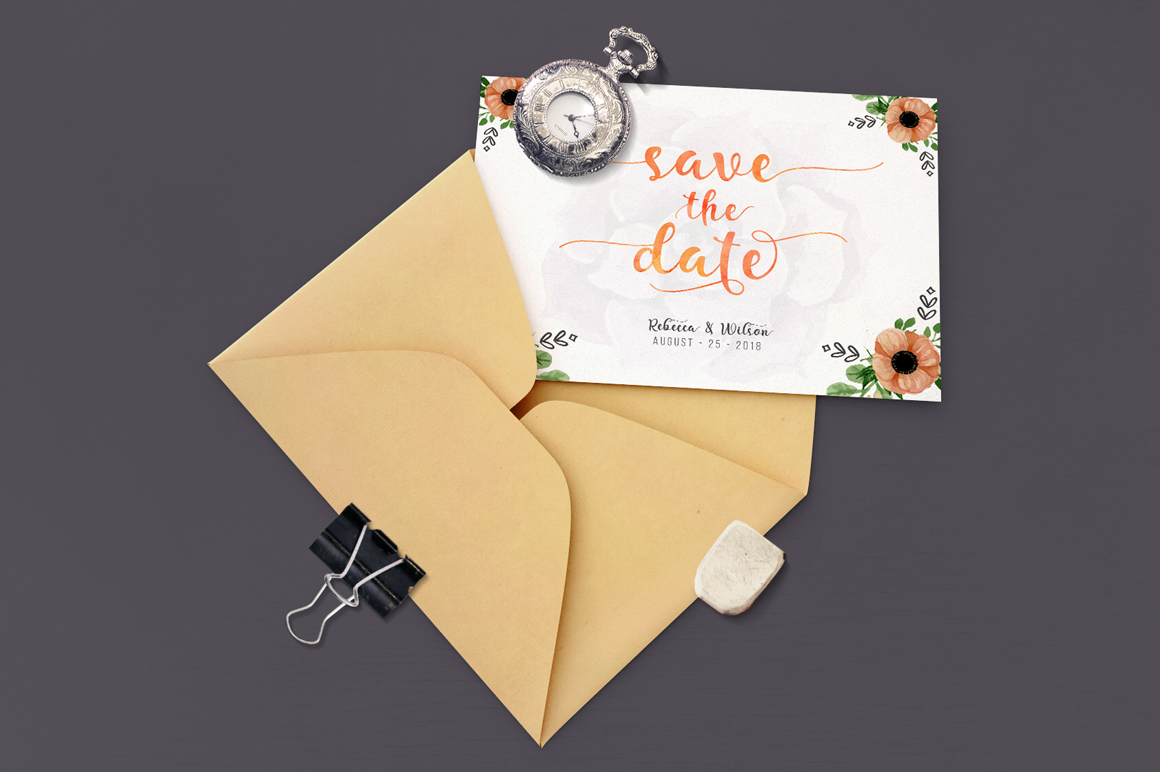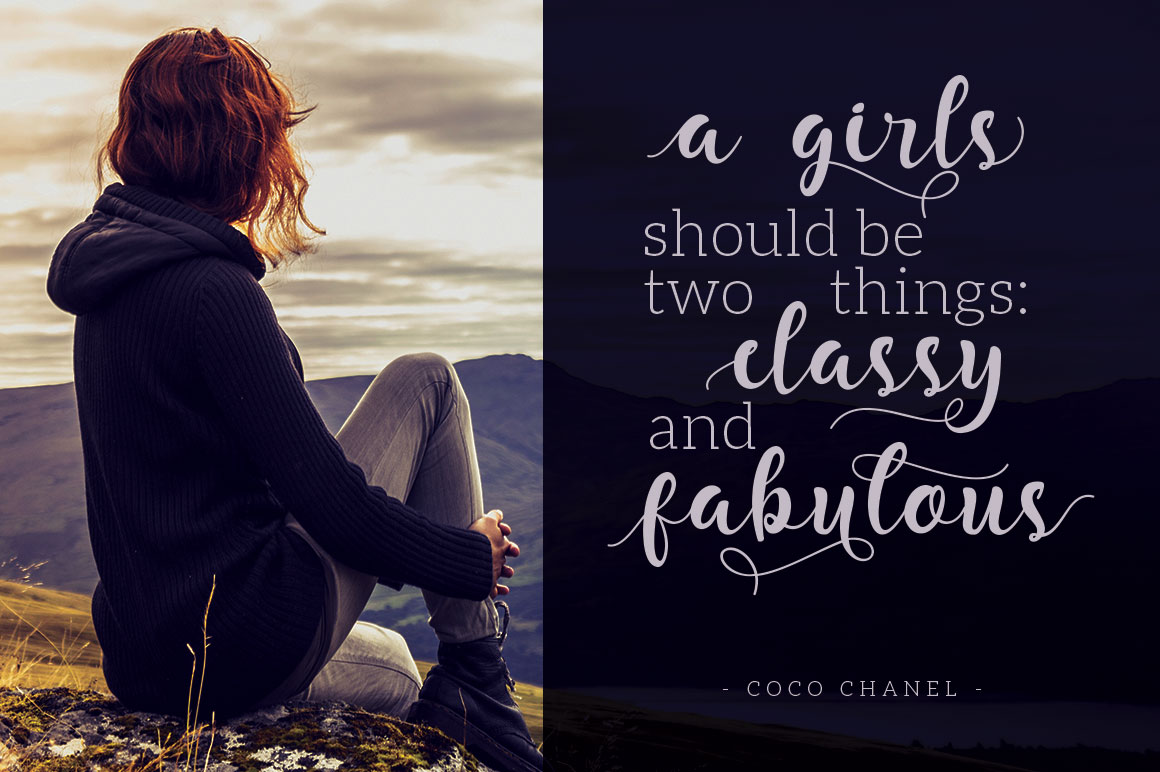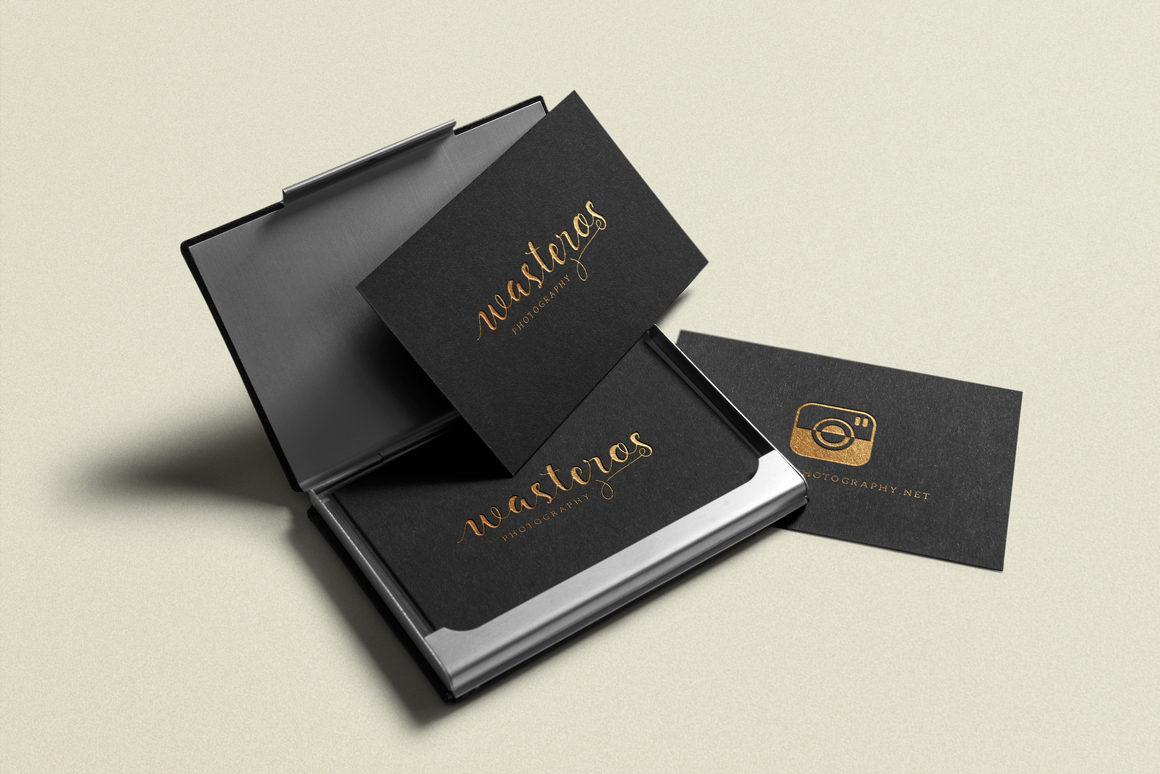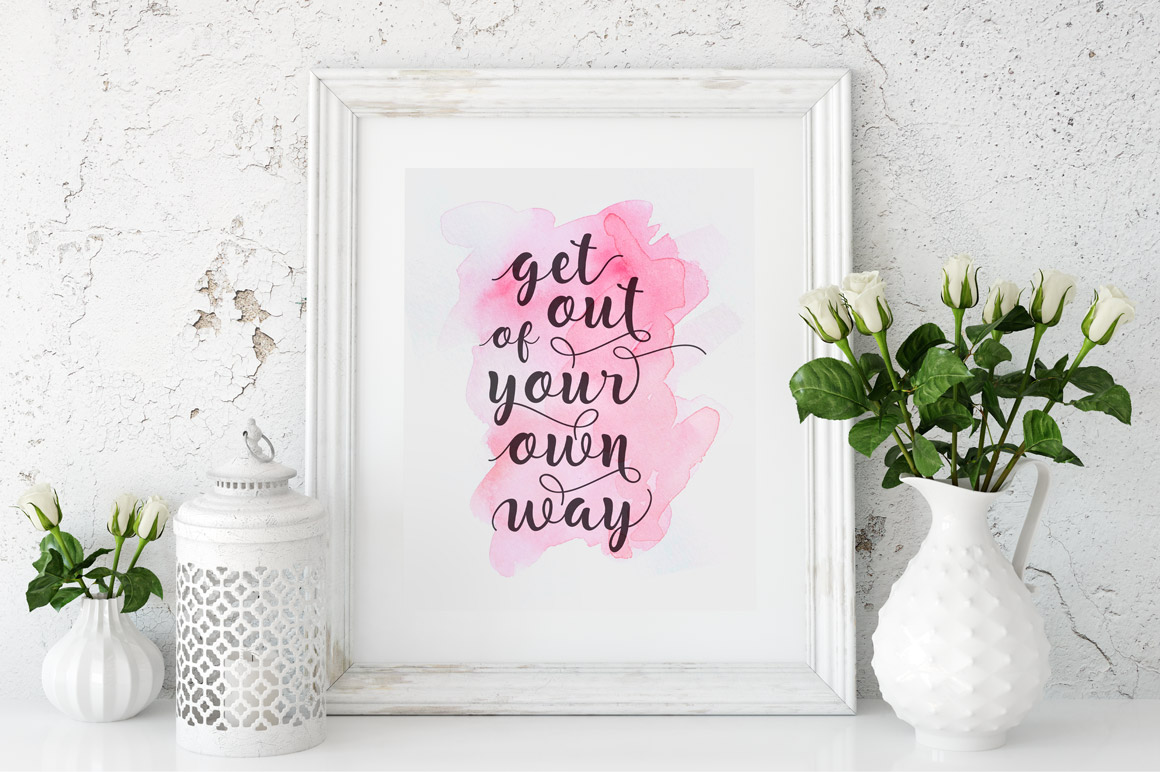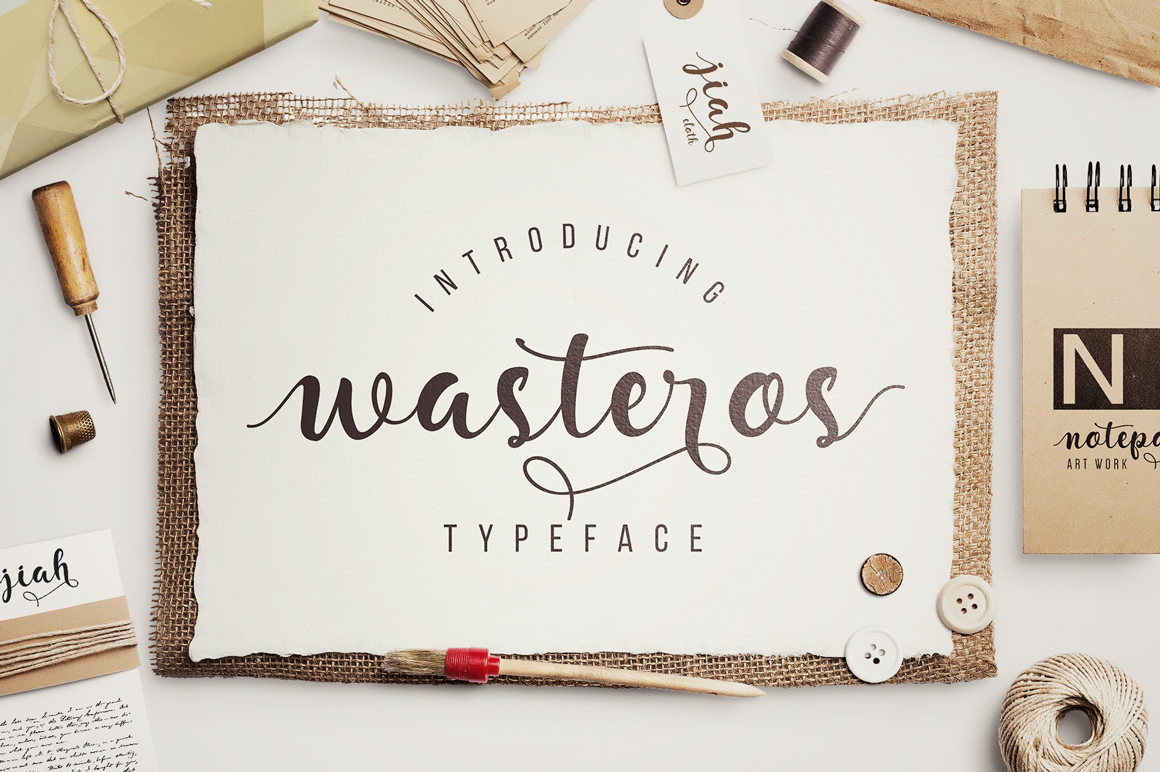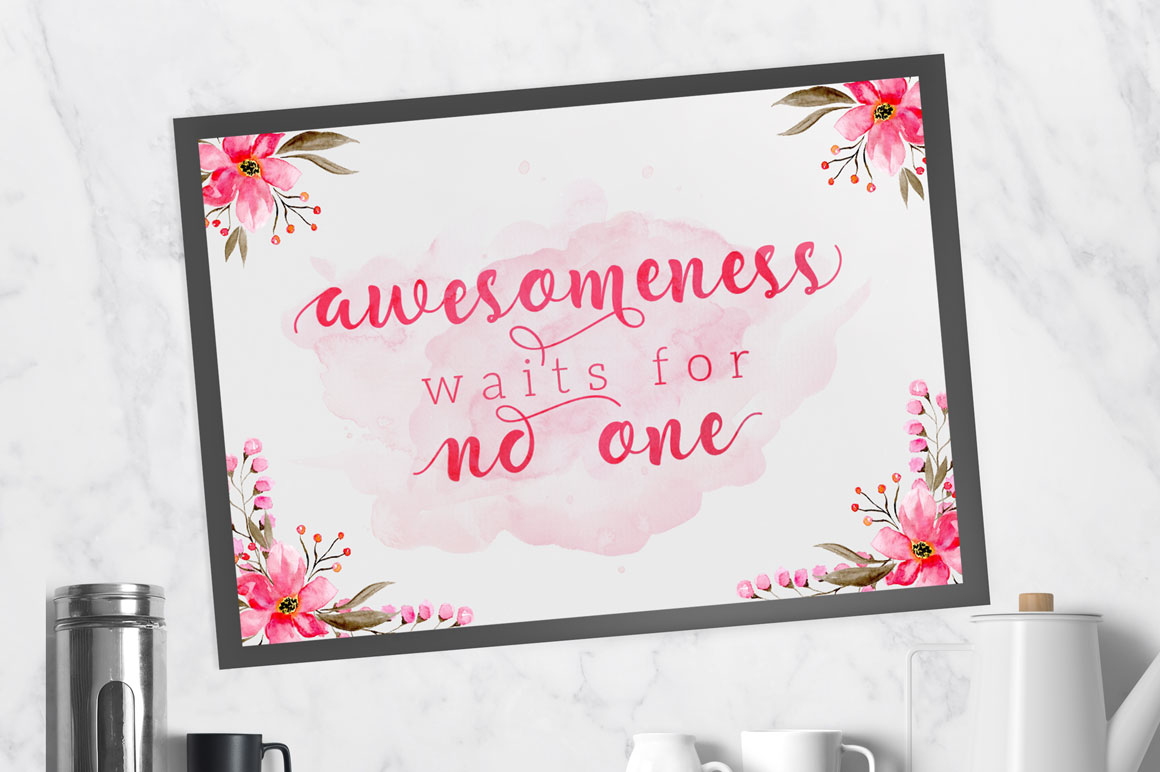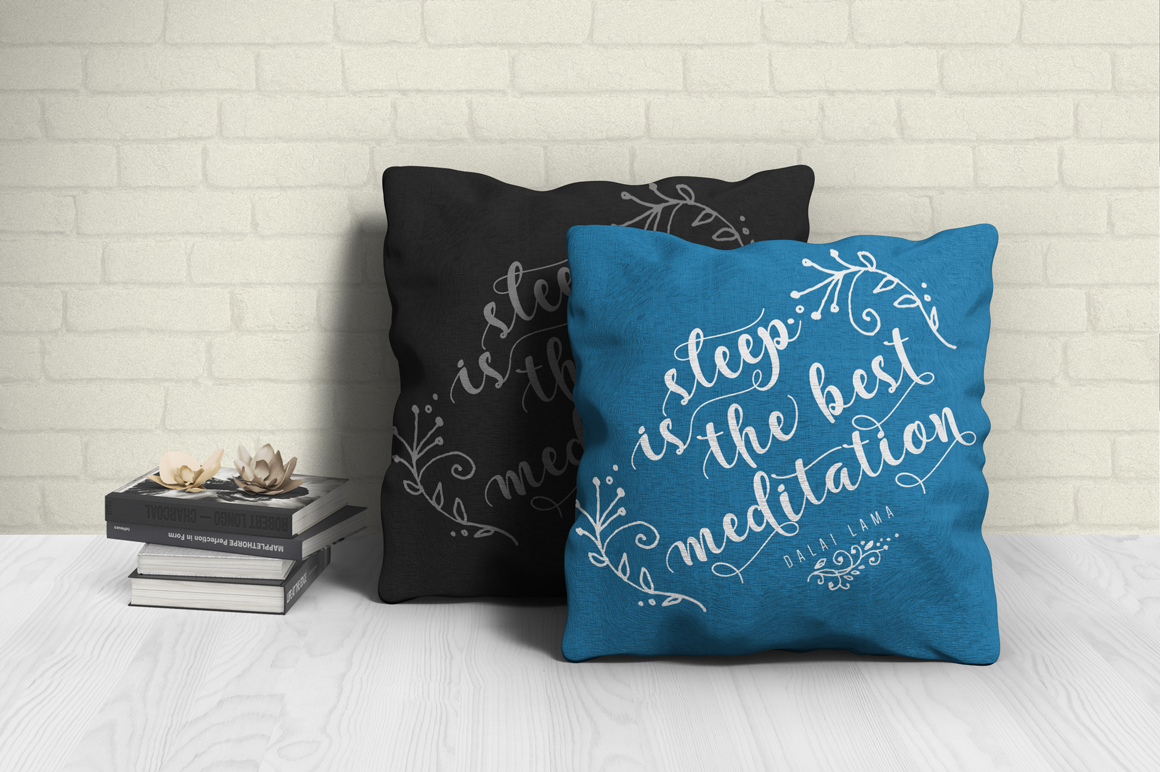
Wasteros Font
About Wasteros Font
Wasteros Typeface is a modern hand-brush script font based, made with a brush that is then refined with pen. Wasteros consists of letters that flows irregularly, either between top-down and with the letter afterwards, making it suitable for standout designs.